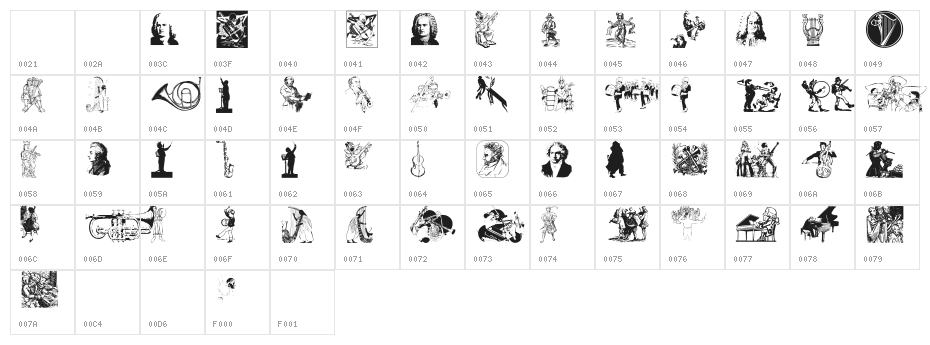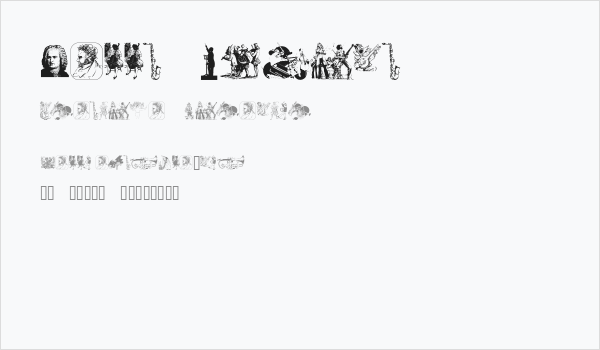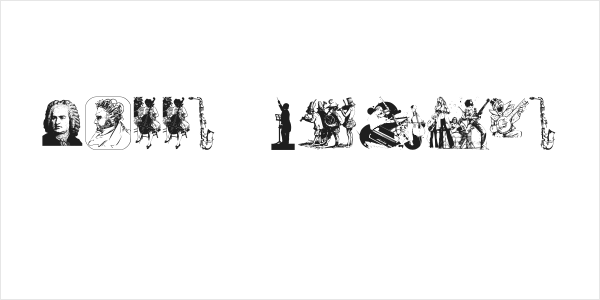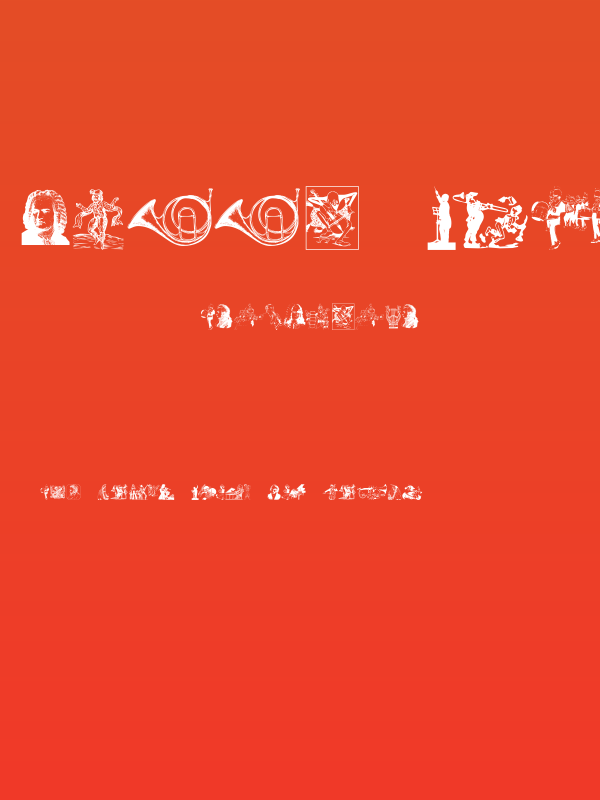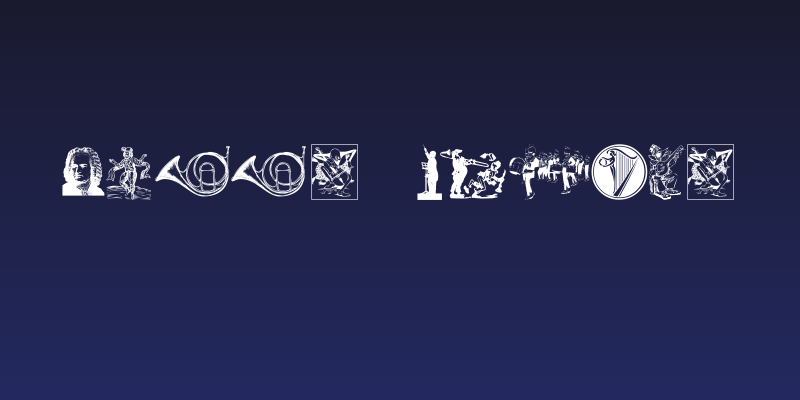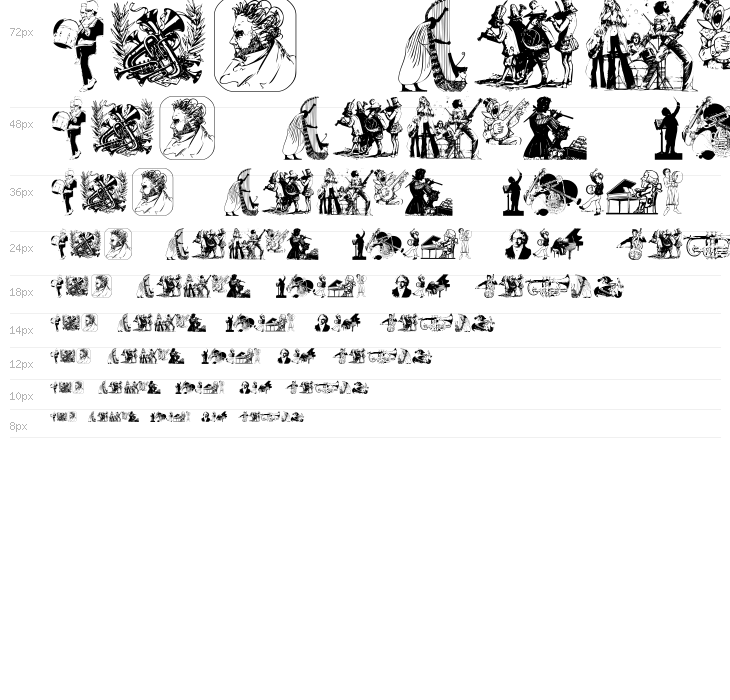
Bella Musica Font
Bella Musica Description
A decorative display font featuring detailed black-and-white illustrations of classical musicians, musical instruments, and music-related scenes. Each character is represented by a unique, intricate drawing rather than a traditional letterform.
| Overall Style | Decorative, Thematic, Artistic |
| Use Case | Logos, Posters, Themed Graphics, Educational Visuals |
| Proposed Projects | Music event posters, educational materials, themed invitations, album covers, creative art projects. |